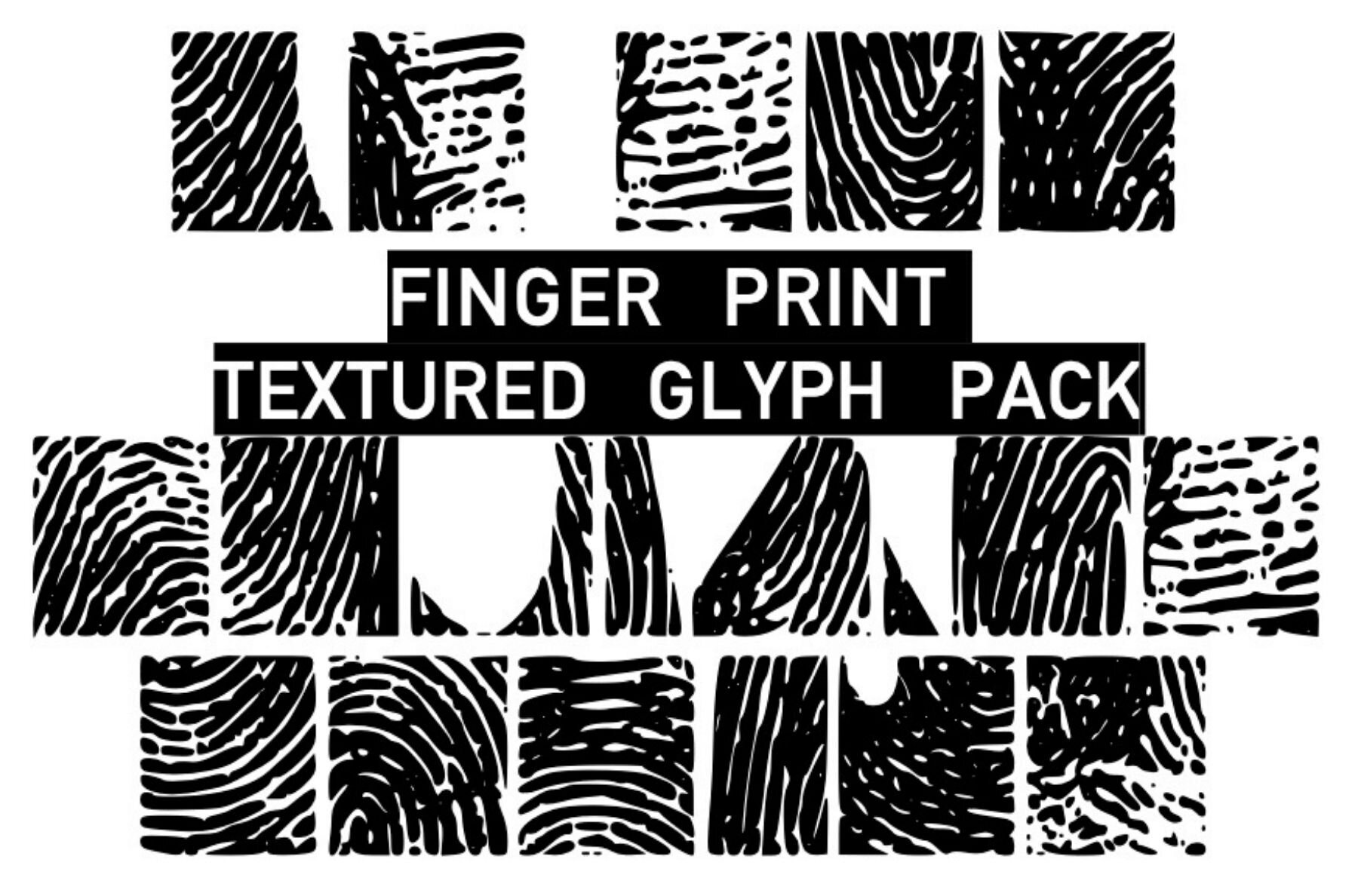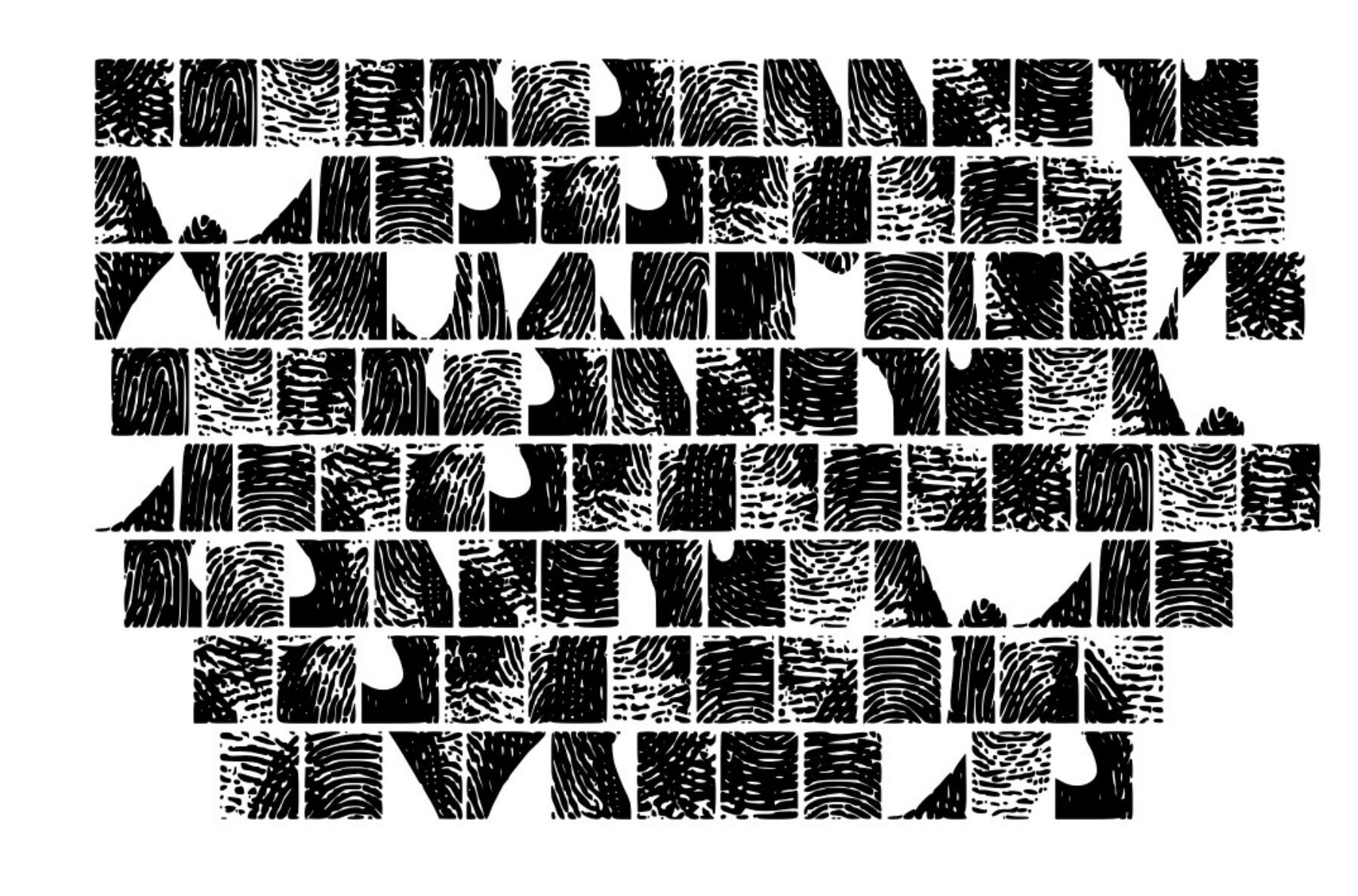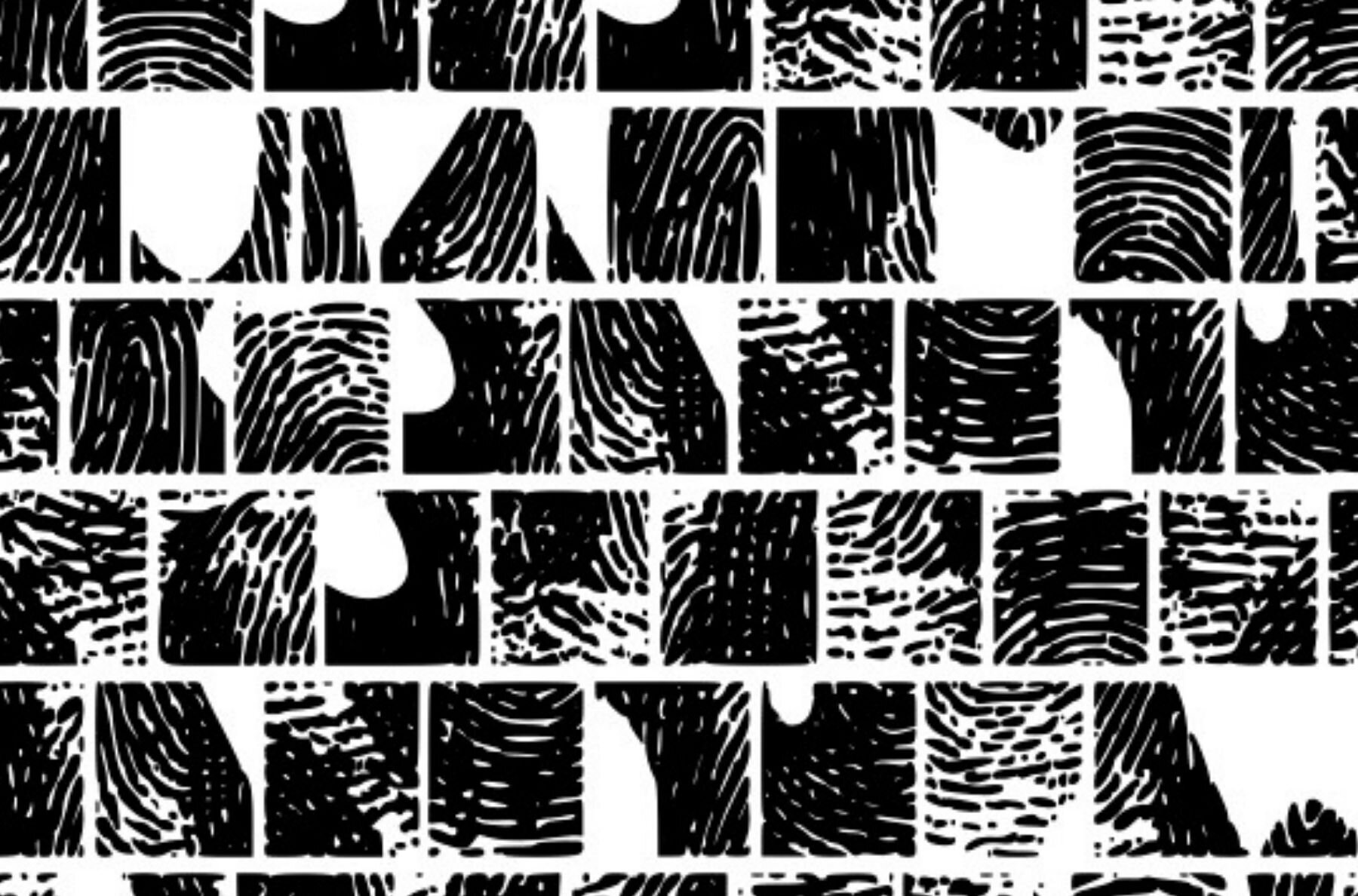
Texture Fingers Prints Font
Texture Glyph Fingers
Texture Fingers Prints by Graphics Bam offers a one-of-a-kind collection of finger and palm print glyph textures, perfect for adding a natural, organic element to your designs. Whether you're working on craft projects, graphic design, or illustrations, these prints bring authenticity and depth to your work. This pack is essential for those looking to add a subtle yet remarkable detail to their creative endeavors. Elevate your designs with these unique textures.Add Intrigue with Texture Fingers Prints
Versatile Glyph Features